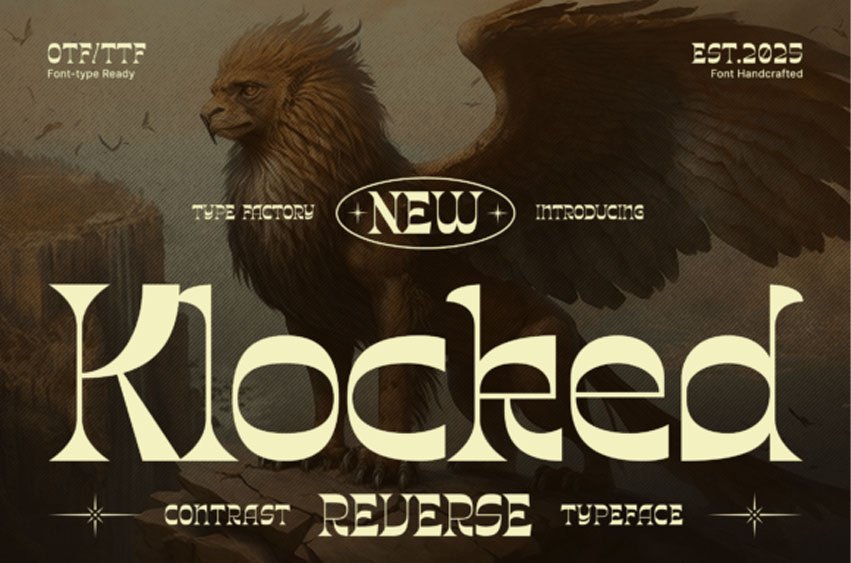
Klocked Font is a retro reverse contrast serif typeface featuring bold letterforms and distinctive reversed stroke weight. The design highlights thicker horizontal strokes and lighter vertical structures, creating a unique typographic rhythm inspired by vintage display lettering.
Its strong shapes and stylized serif details give Klocked a nostalgic character suitable for eye-catching titles and expressive typography. The typeface works well for posters, branding, packaging, signage, and logo design that require a bold retro aesthetic.
With its striking structure and display-oriented proportions, Klocked is ideal for creative layouts, editorial headlines, and vintage-inspired graphic compositions.